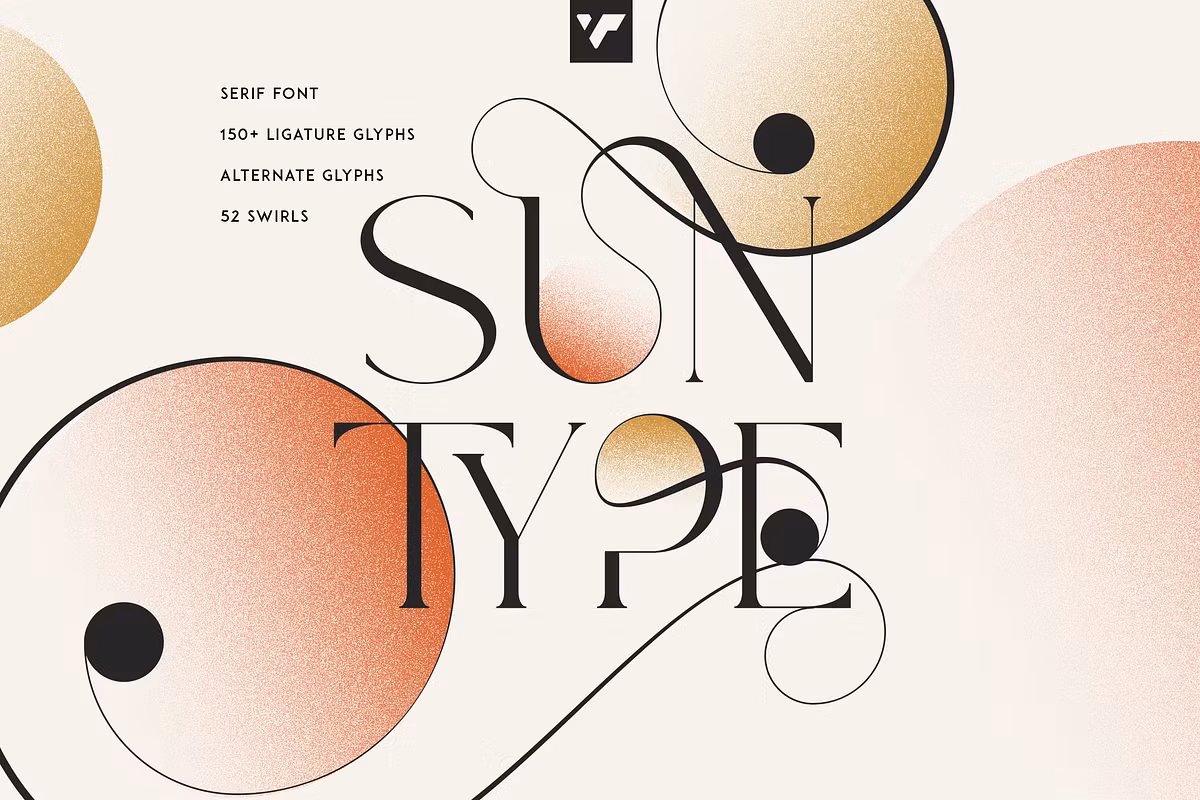
Sun Type Creative Logo Font Free Download is a bold and modern typeface crafted specifically for standout logo designs, branding projects, packaging, and creative headlines. With its clean lines and artistic flair, this font offers a perfect balance of originality and professionalism. Please note that you must purchase this font for commercial use, but it is available as a free download for testing purposes. Give your brand a bright and confident identity with Sun Type Creative Logo Font Free Download, and let your typography shine with style and innovation.